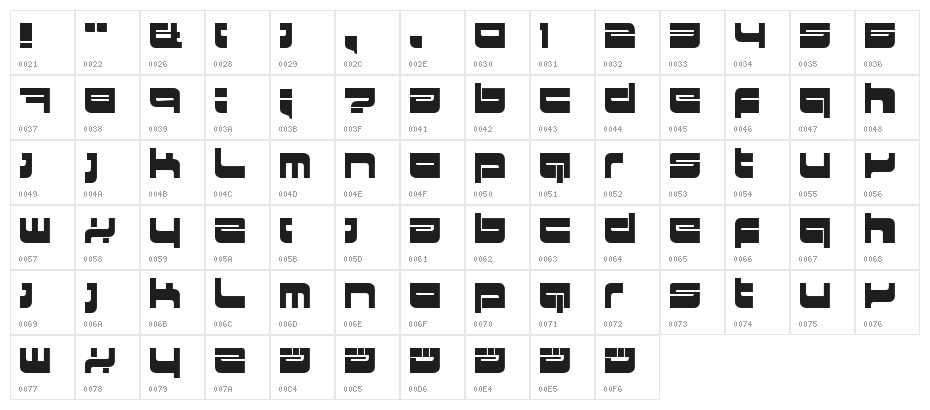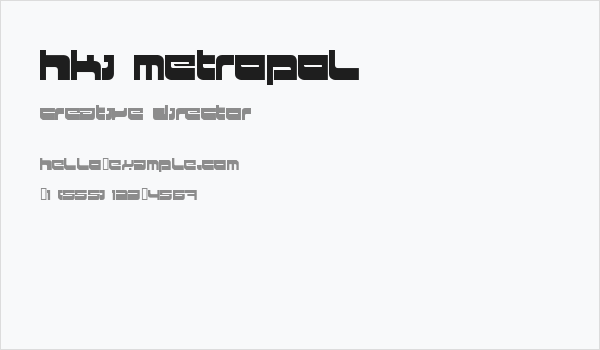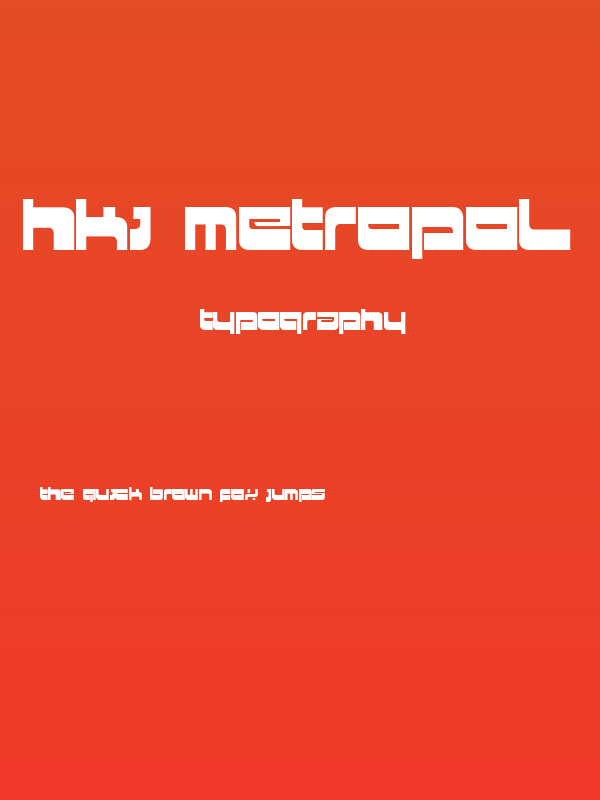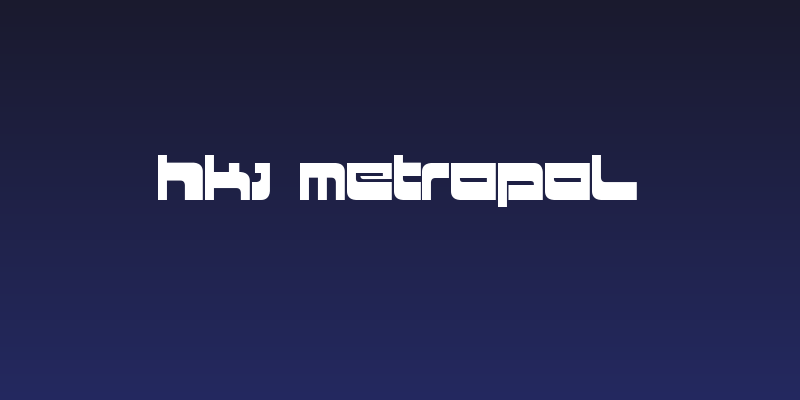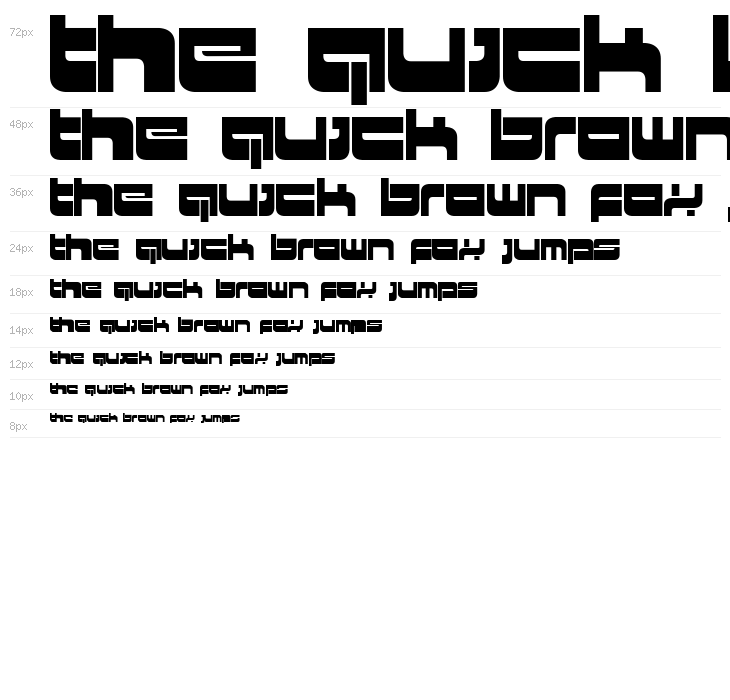
HKI metropol Font
HKI metropol Description
This font features a bold, geometric design with a futuristic aesthetic. The characters are constructed with thick, blocky shapes that create a strong visual impact. The uppercase and lowercase letters share a consistent style, with rounded edges and a uniform height that contributes to a cohesive look. The numerals and special characters maintain the same boldness and geometric form, ensuring versatility across different uses. The font's distinct style makes it suitable for modern and tech-oriented designs, providing a sense of innovation and forward-thinking. Its unique appearance is ideal for projects that require a standout typeface with a contemporary edge.
Proposed ProjectsIdeal for tech branding, futuristic posters, video game titles, and sci-fi themed projects.